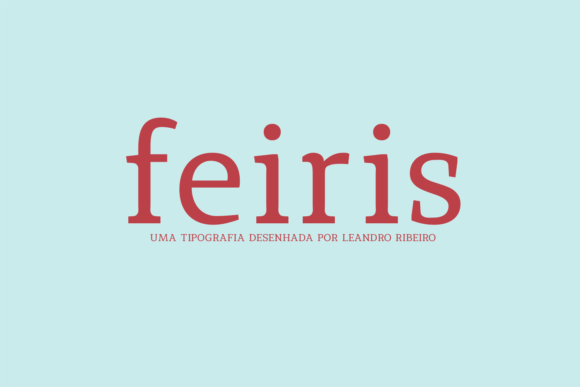
In a world of monotonous typefaces, Feiris Font emerges as a beacon of creativity, transforming your designs into captivating masterpieces. Experience the allure of this enchanting serif font, meticulously crafted to ignite your imagination and leave an indelible mark on your audience.
With its innate adaptability, Feiris Font effortlessly blends into a multitude of design landscapes, from the pages of captivating books to the crisp lines of documentation, business reports, and correspondence. Its versatility extends to magazines and newspapers, where its refined presence elevates articles and headlines alike. Unleash your artistic vision on posters and advertisements, where Feiris Font commands attention with its bold strokes and elegant curves.
Feiris Font's versatility transcends the printed page, extending its influence to the dynamic realm of multimedia and corporate design. Its ability to adapt to various contexts makes it the perfect choice for designers seeking a font that seamlessly integrates into their creative endeavors.
Embrace the boundless potential of Feiris Font and witness the transformation of your designs into captivating works of art. Its timeless beauty and unwavering adaptability will leave your audience spellbound, eager to delve into the worlds you create. Let Feiris Font ignite your creativity and elevate your designs to unprecedented heights.